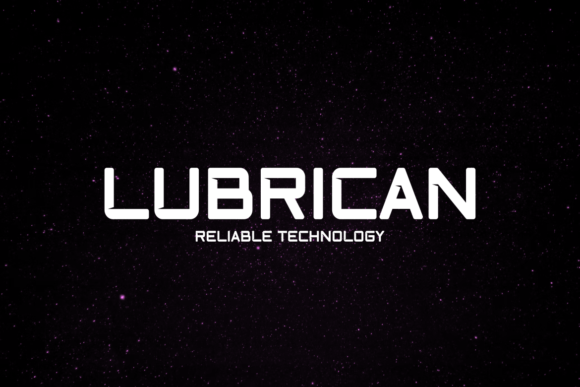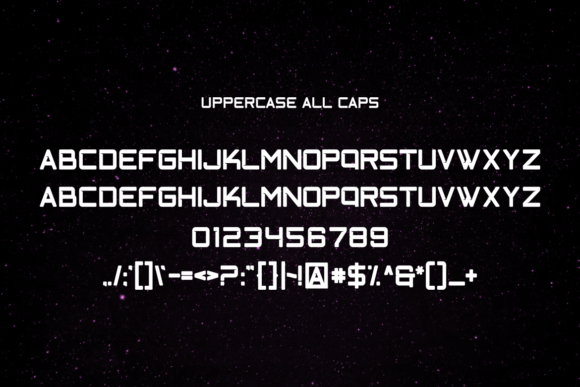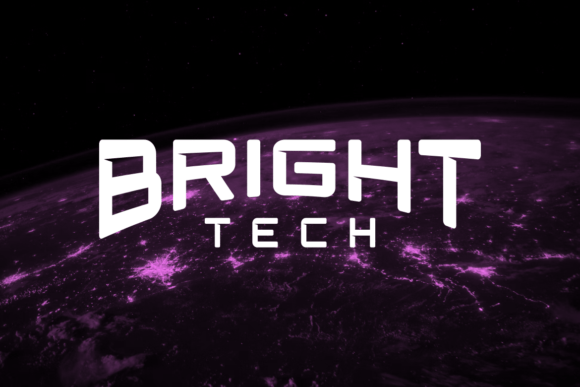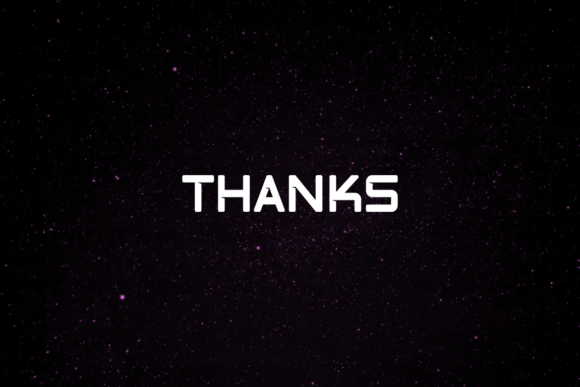
The Perfect Font for Your Next Big Design
As creatives, we’ve all been there – staring at a blank canvas, unsure of where to start. The cursor blinks, taunting us to bring our vision to life. And then, like a bolt of inspiration, it hits us. A spark of creativity ignites, and our ideas begin to flow. For designers working on tech-related projects, this moment is often accompanied by the need for a font that’s both modern and easy to read.
Enter Bright Tech Font, a sleek and sophisticated sans-serif font designed specifically for the digital age. With its clean lines and simple aesthetic, it’s the perfect tool for bringing your techy designs to life. Whether you’re working on a new app, a website, or a social media campaign, Bright Tech Font is the ideal choice for adding a touch of sophistication and readability to your content.
What sets Bright Tech Font apart is its versatility and ease of use. It’s a valuable asset for designers, allowing them to create stunning and effective designs that engage their audience. With Bright Tech Font, the possibilities are endless, and your creative vision can shine through with clarity and precision.
Bright Tech Font Key Features
- Font Family: Bright Tech Font is a modern sans-serif font designed for technical and business applications.
- Unique Characteristics: Bright Tech Font features a unique blend of modern and technical elements, with clean lines, geometric shapes, and a futuristic feel.
Bright Tech Font Review
Overall, I think the Bright Tech Font is a solid addition to any digital project. ✨ One of its greatest strengths is its versatility – it can be used for a wide range of applications, from websites and mobile apps to print materials and presentations. The font’s modern and sleek design makes it perfect for tech-related projects, but it also works well in more creative contexts.
Here are some specific things that I like about the Bright Tech Font:
- ✨ Its clean and minimalistic design makes it easy to read and understand.
- ✨ The font’s scalability is excellent, looking great in both large and small sizes.
- ✨ It’s highly legible, even at low resolutions.
- ✨ The font includes a wide range of characters, including numbers, punctuation, and special symbols.
- ⚠️ The font may not be suitable for very formal or traditional projects, as its modern design may clash with more conservative aesthetics.
- ⚠️ Some users may find the font too bold or overpowering, especially in smaller sizes.
- ⚠️ The font may not be as widely supported as some other fonts, which could cause issues in certain browsers or operating systems.
Overall, I’d give the Bright Tech Font a solid 4 out of 5 stars. While it’s not perfect, its strengths far outweigh its limitations, making it a great choice for many different projects.
Bright Tech Font is ideal for:
- Creating modern and sleek designs.
- Highlighting important information or calls-to-action.
- Designing logos, branding materials, and marketing materials.
For the best results, use Bright Tech Font in conjunction with clean and minimalist design principles.